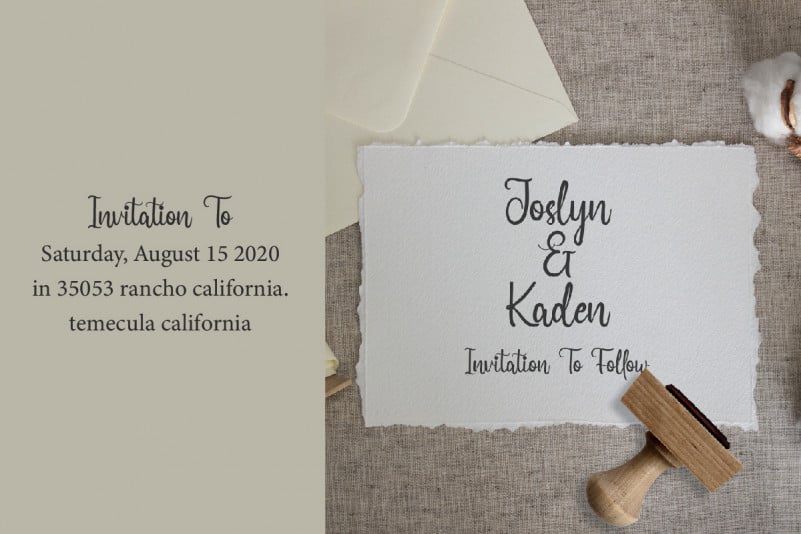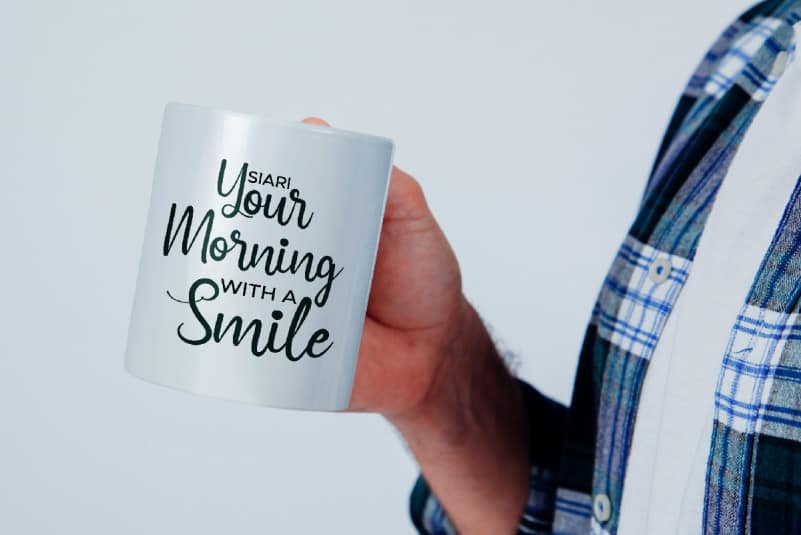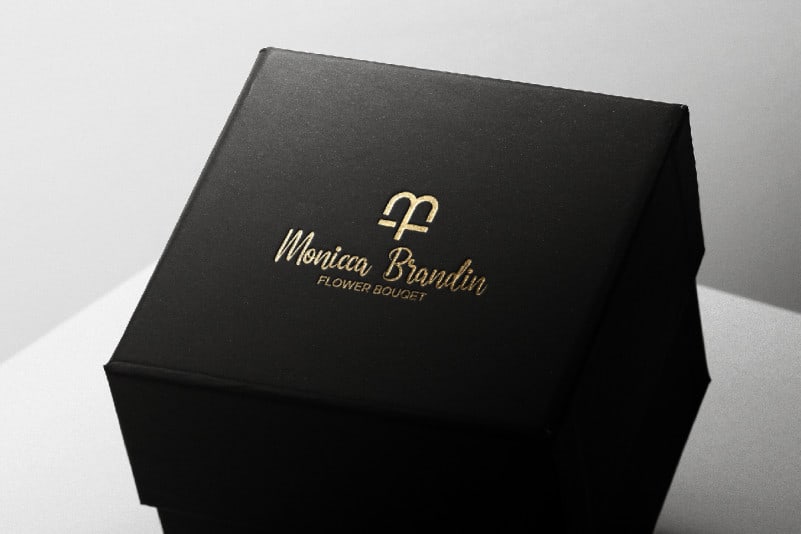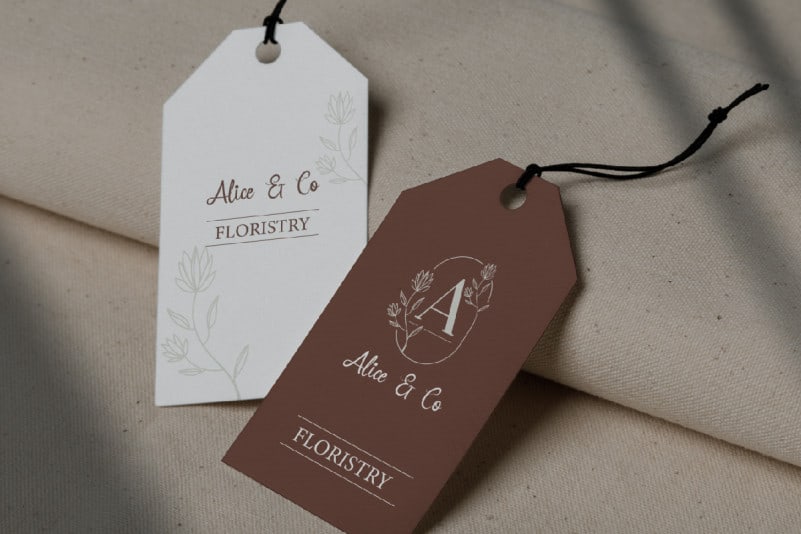
Daringness Font
Daringness Font is a calligraphy handwriting font which is combining modern and classic typography with beautiful look. This font is crafted carefully in every its single letter so we can make sure it has great looking, inspired by the handwriting of Italian women and ancient manuscripts. Carefully designed to work together in harmony and This one should make your designs instantly professional and jaw-dropping!
Daringness Font includes full set of Uppercase and Lowercase Basic Characters, Numerals and Punctuation. Also it contains ligatures to make it flowless characters to perfectly make awesome look that add more aesthetic fonts to perfect your extraordinary project. Many industries will suit this font great including wedding, florist, sales marketing, professional, dentist, real estate, music, videography etc